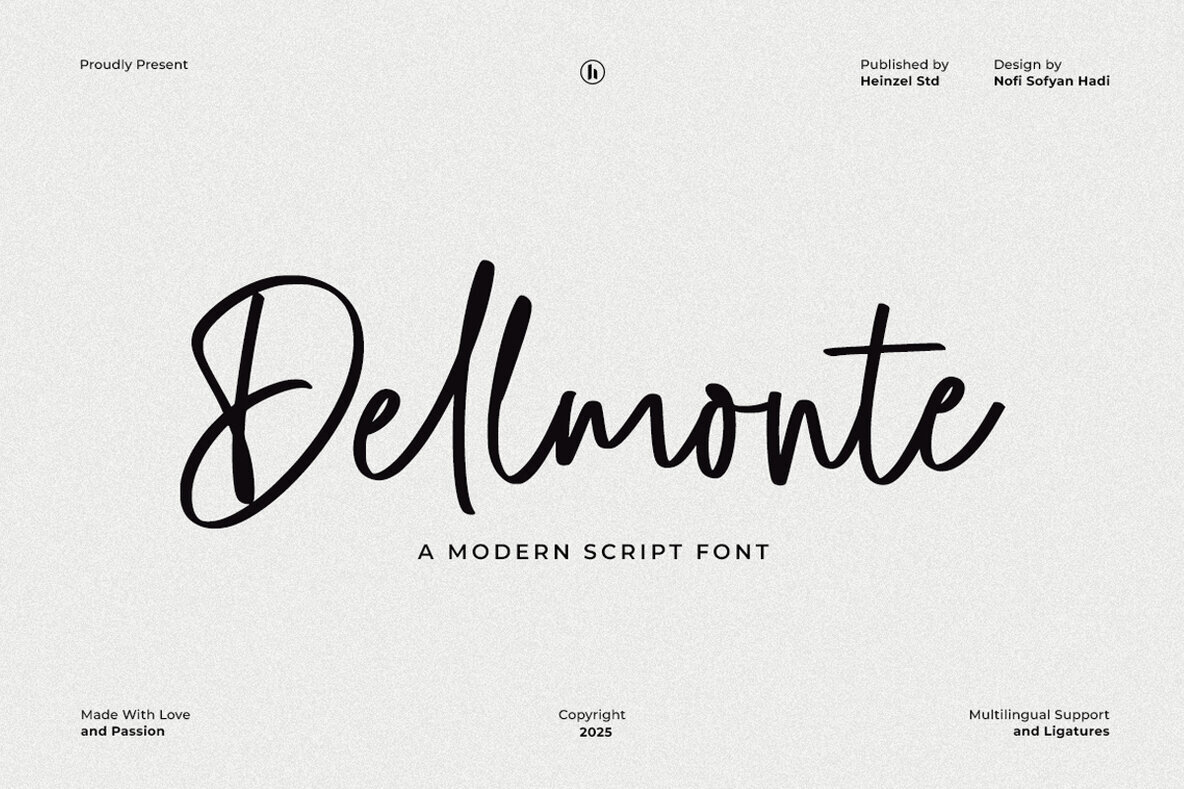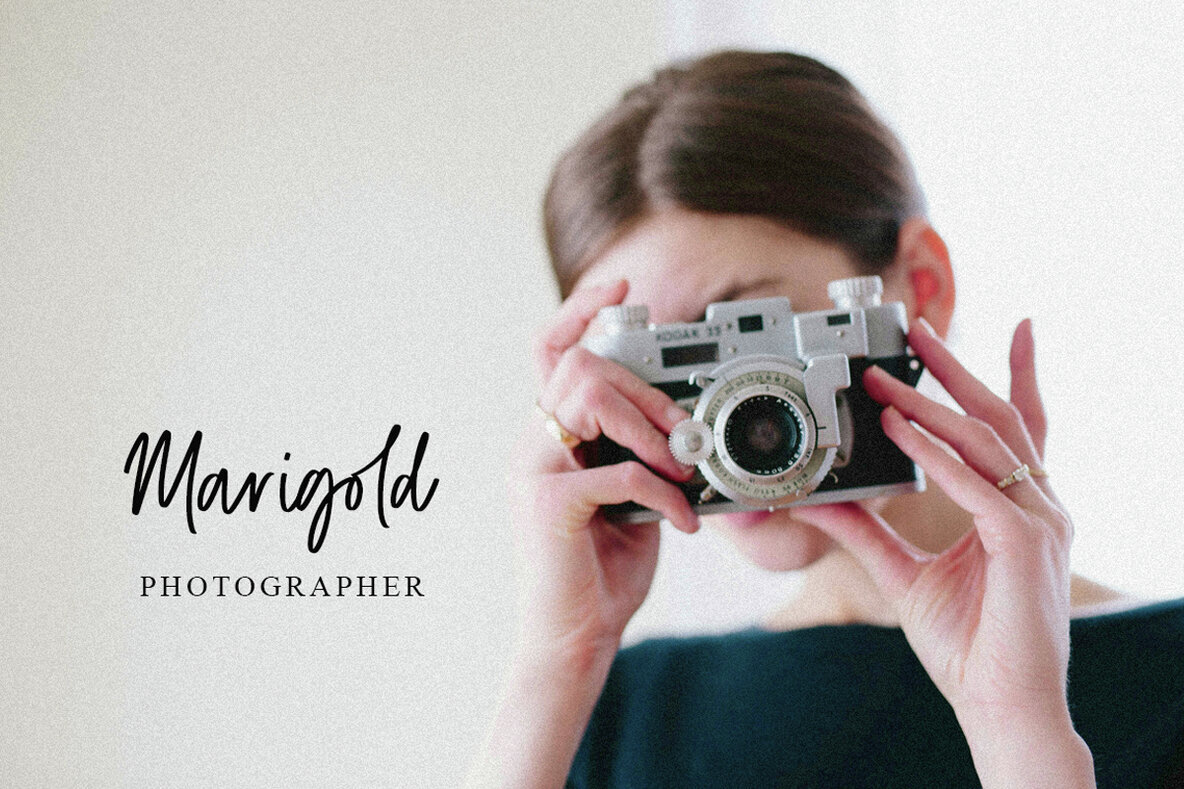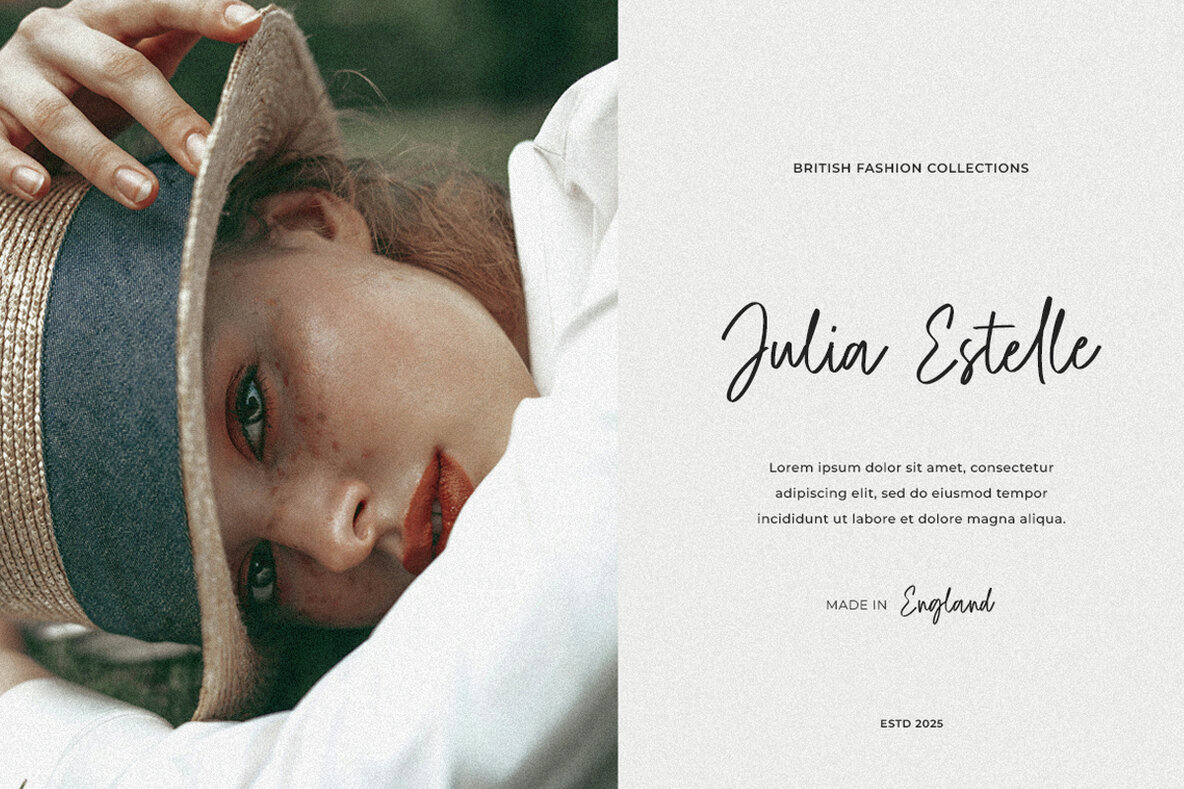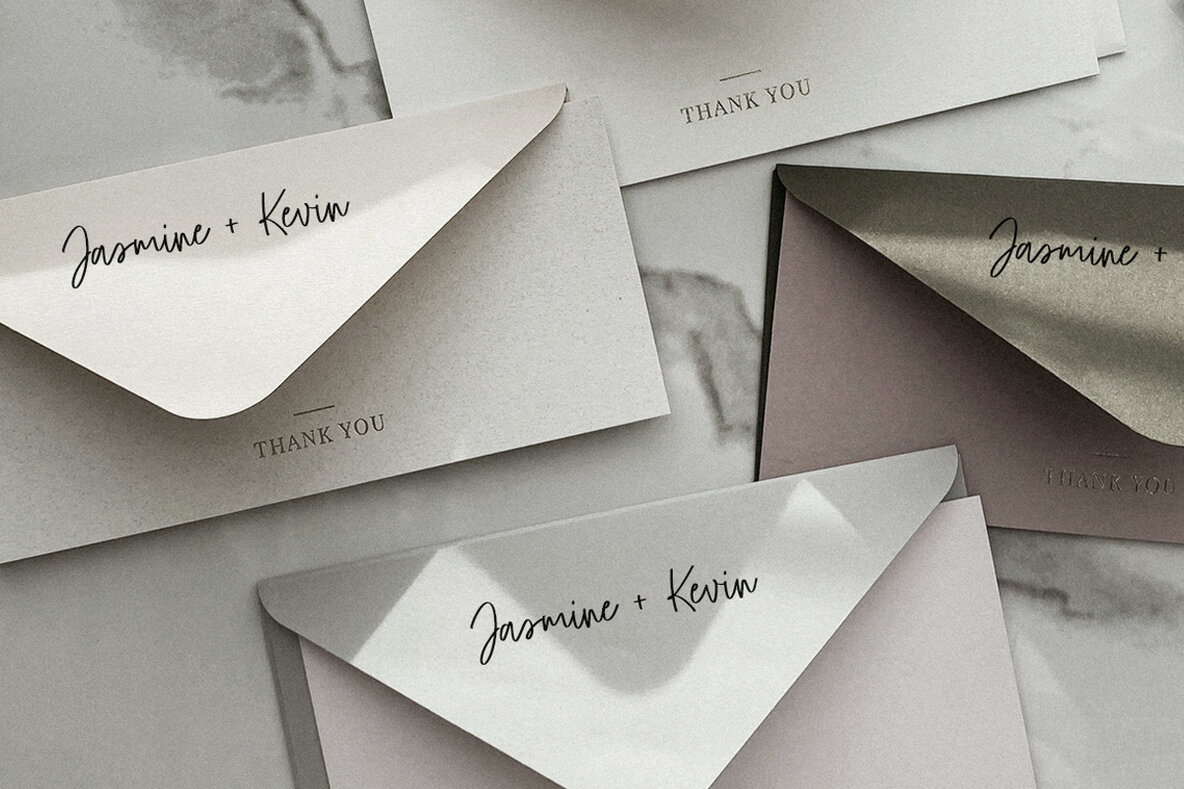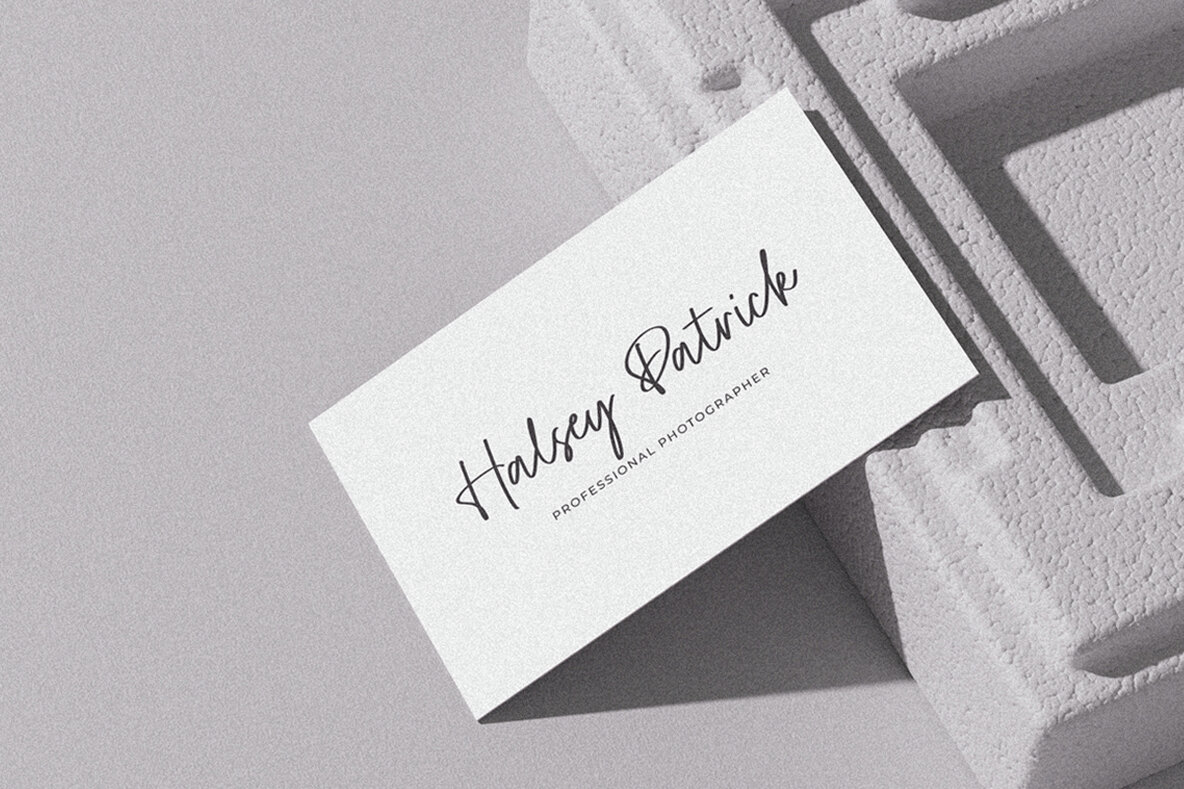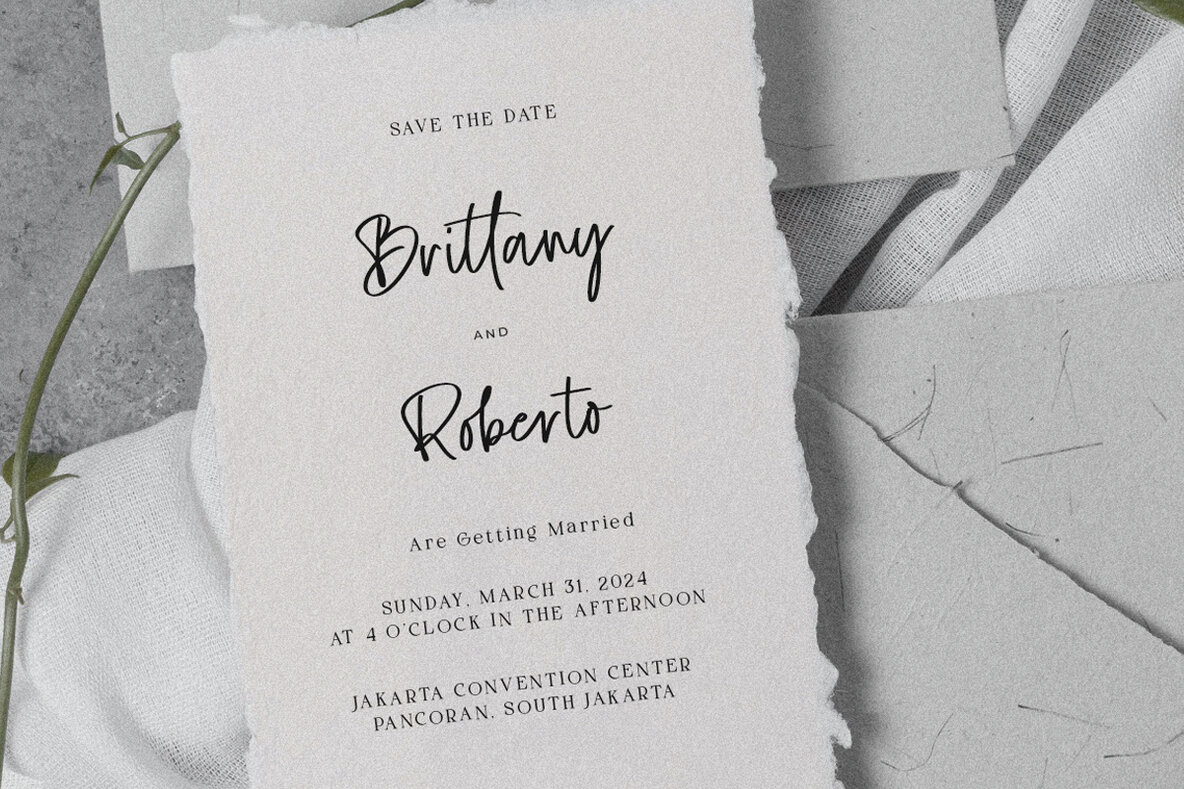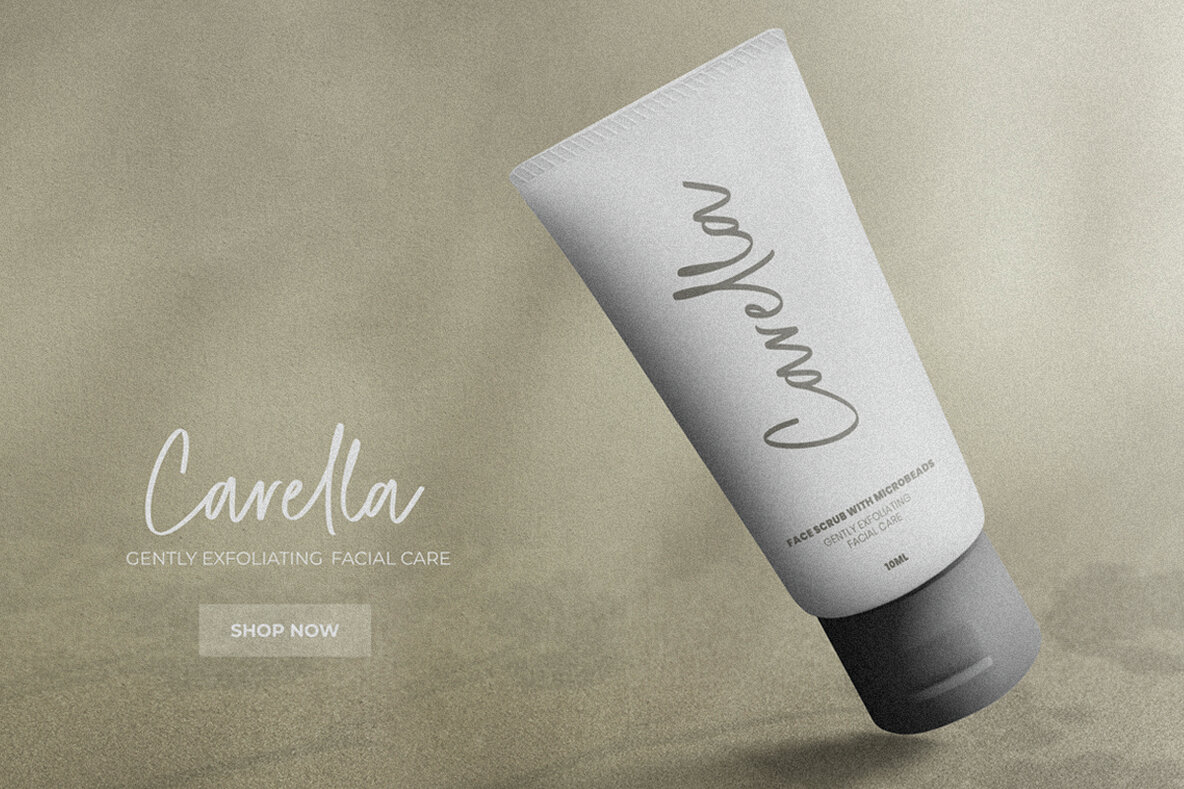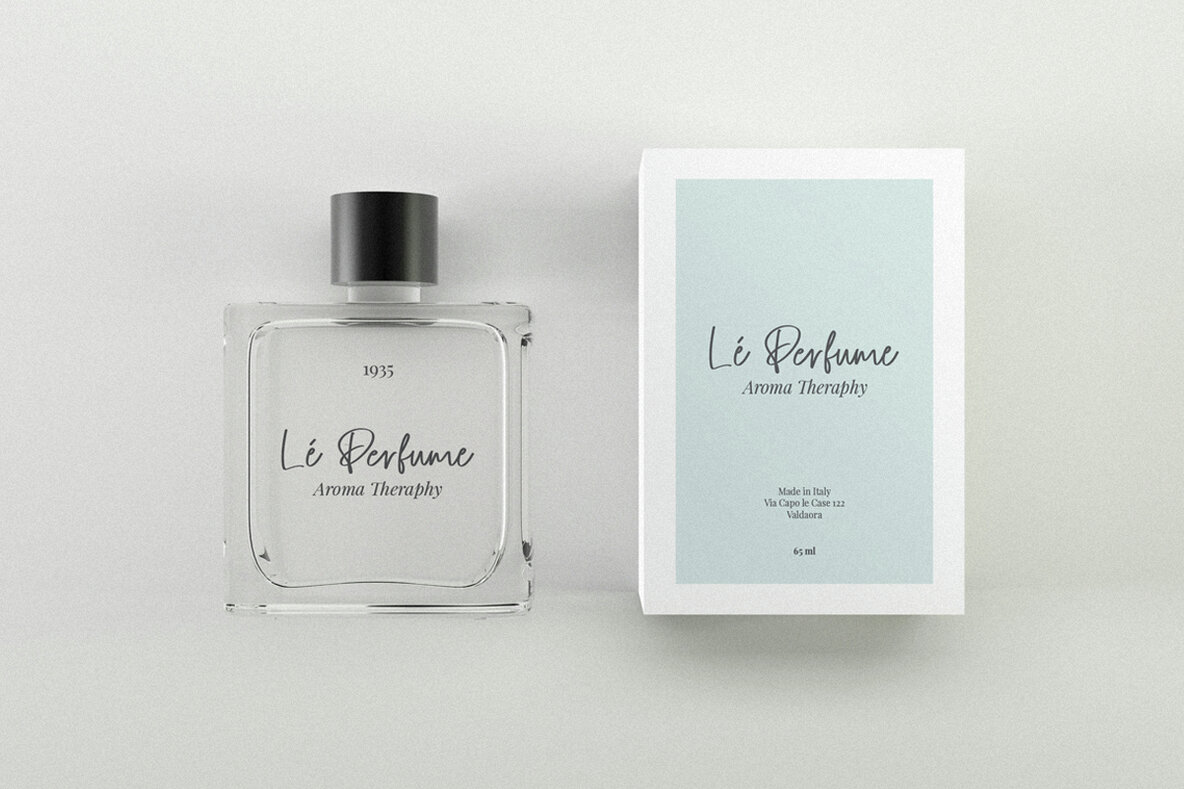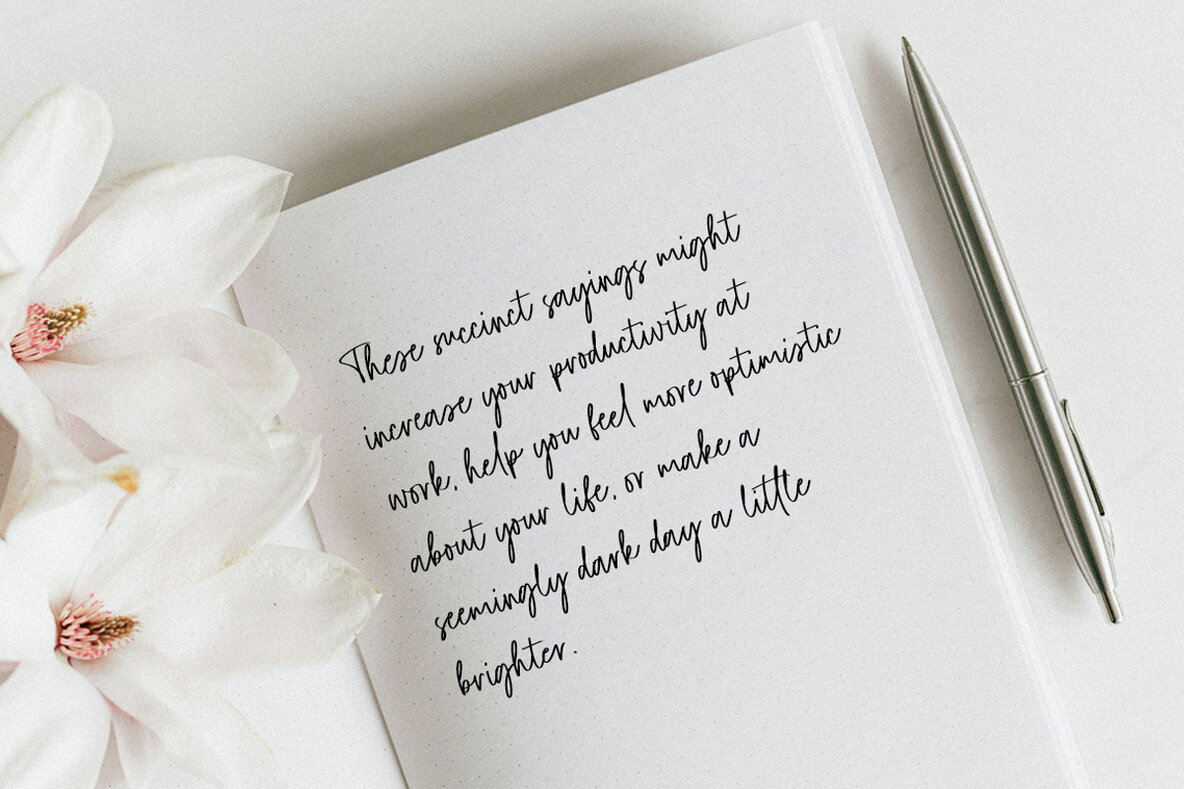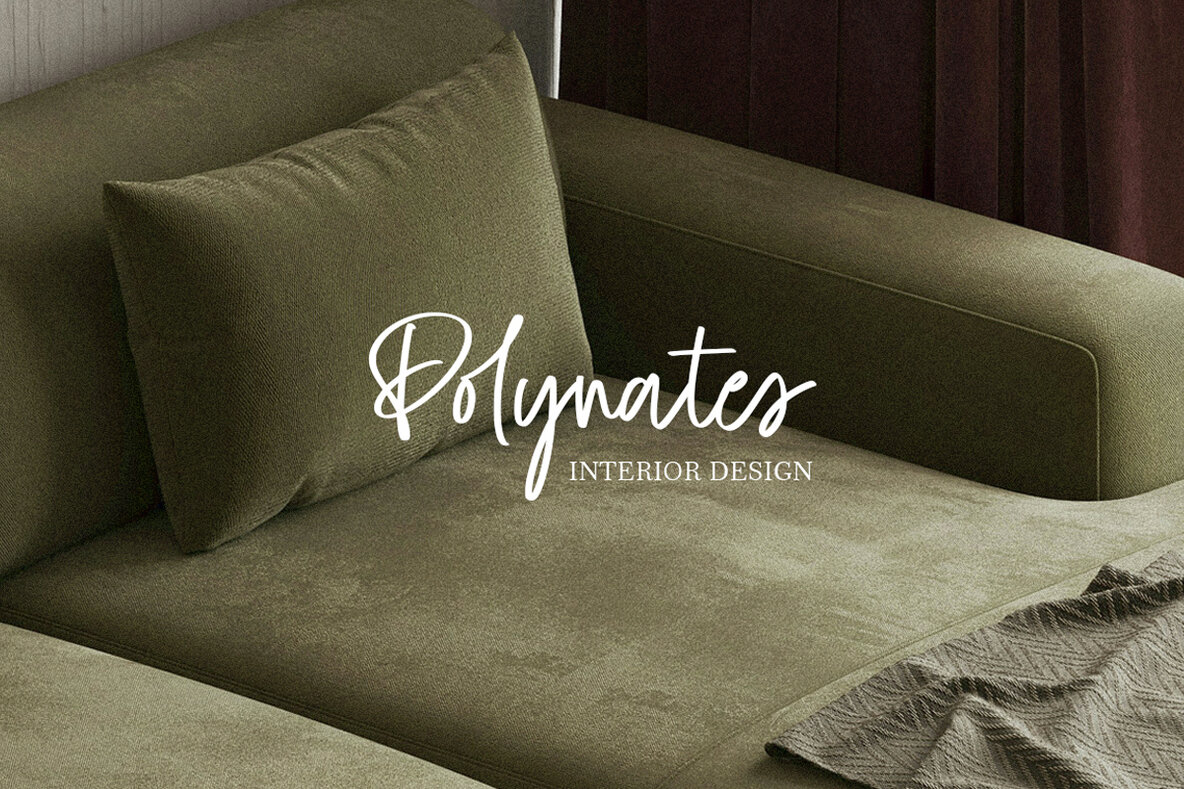
Dellmonte Font
Dellmonte Regular
Dellmonte is a captivating casual script font that combines relaxed charm with the elegance of handwritten style. Its smooth curves and flowing strokes create a friendly and approachable vibe, perfect for a variety of applications. Whether you're working on quotes, branding, packaging, or social media posts, Dellmonte captures the effortless beauty of modern script, offering a personal touch to your designs.Dellmonte: A Casual Script Font for Effortless Elegance